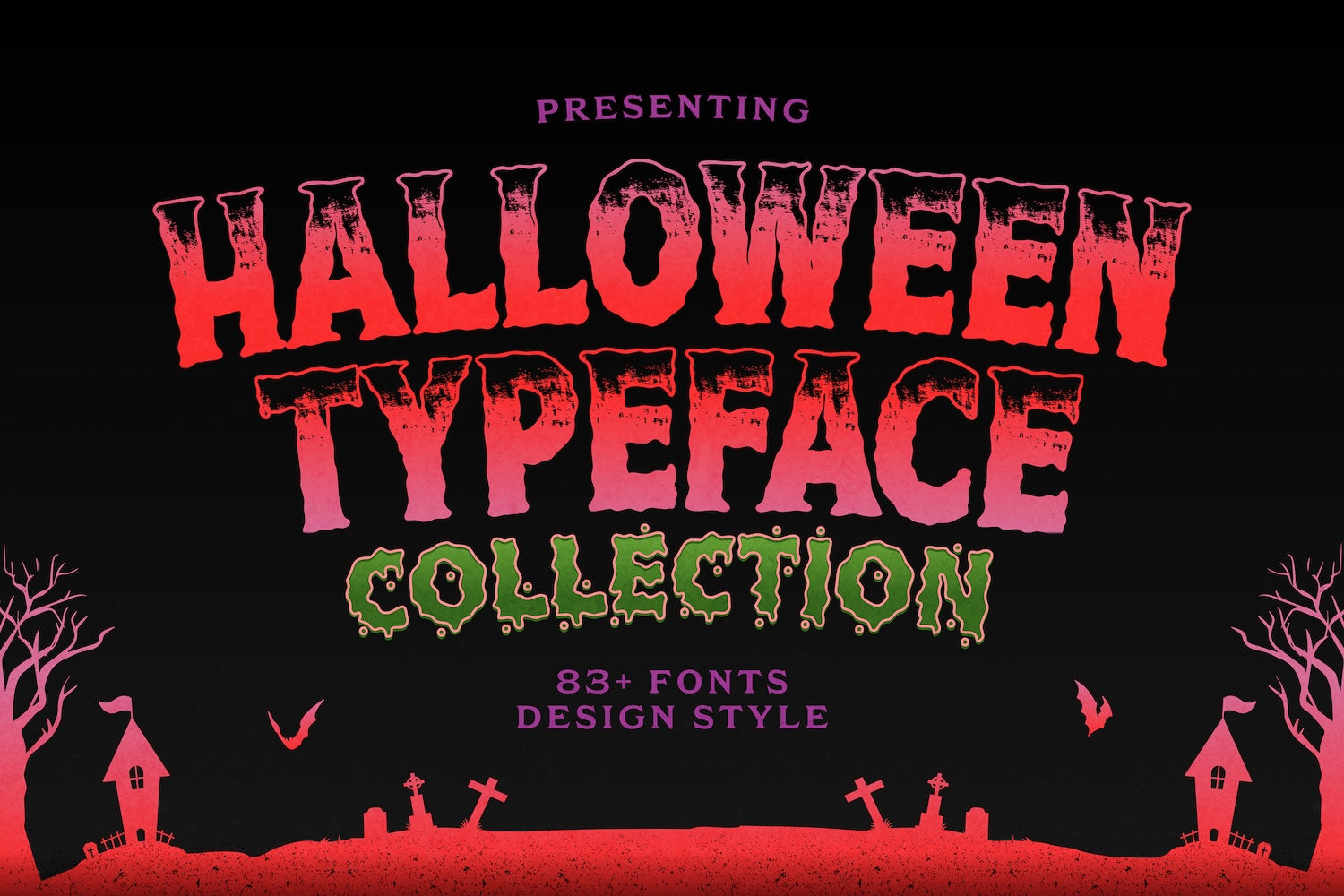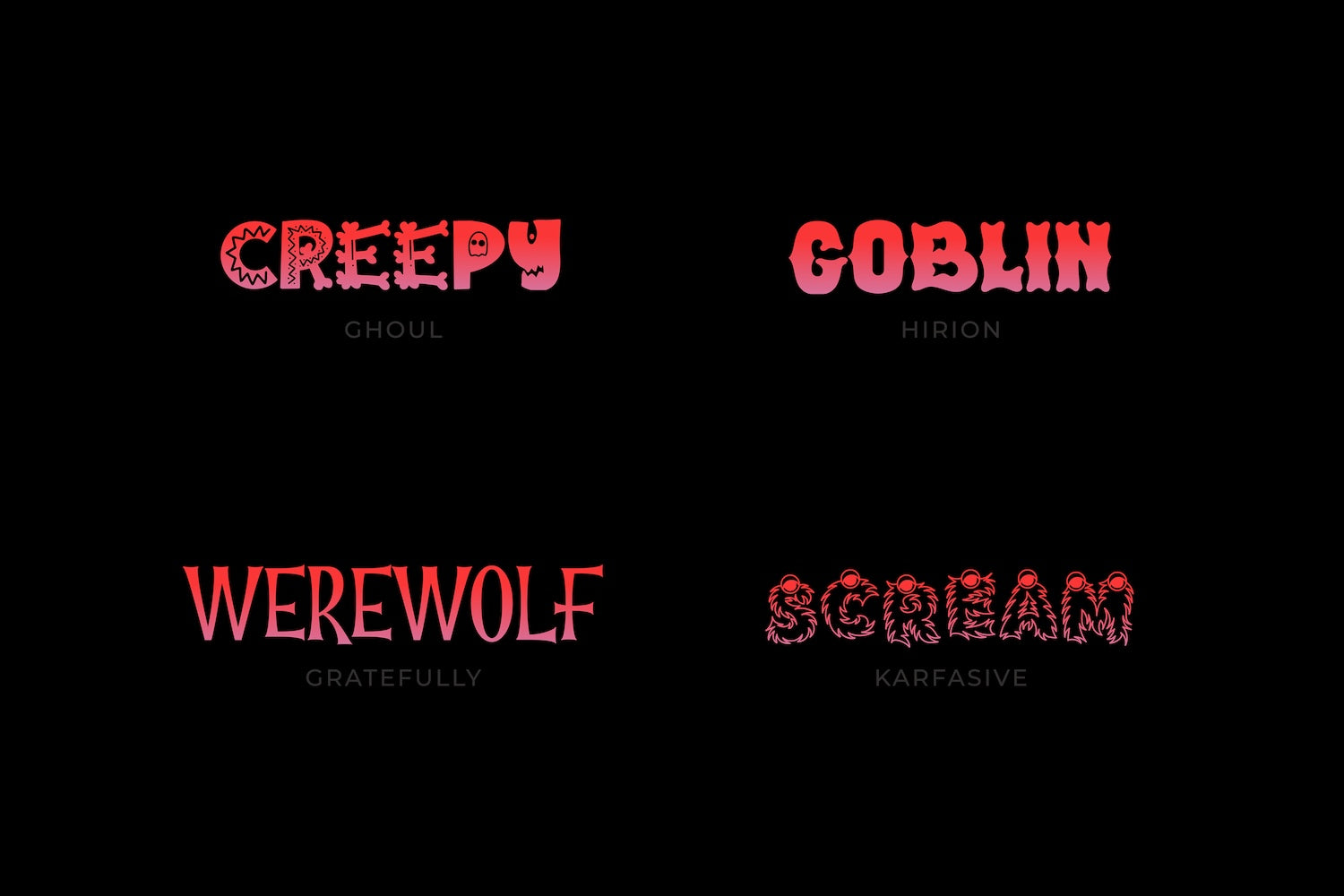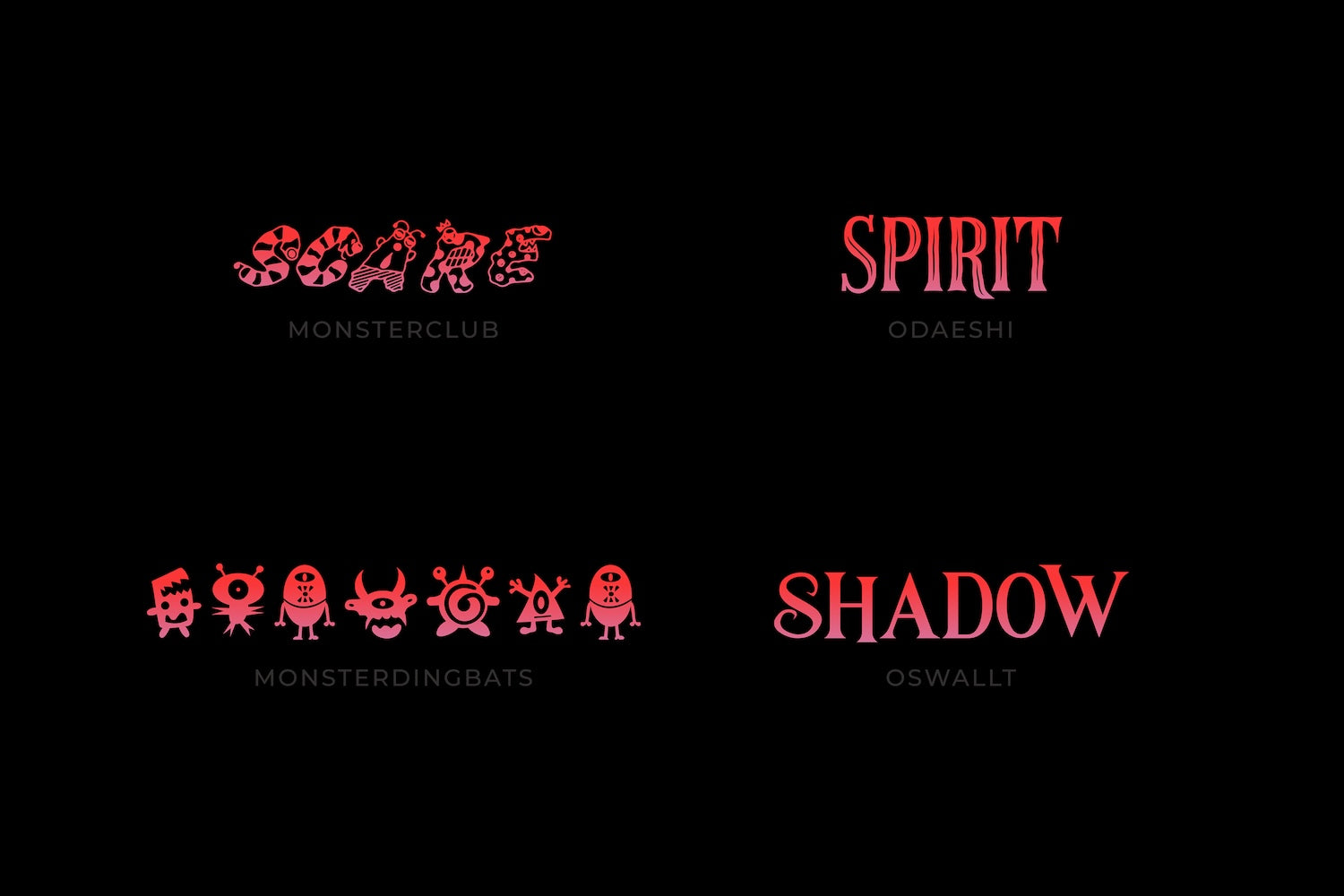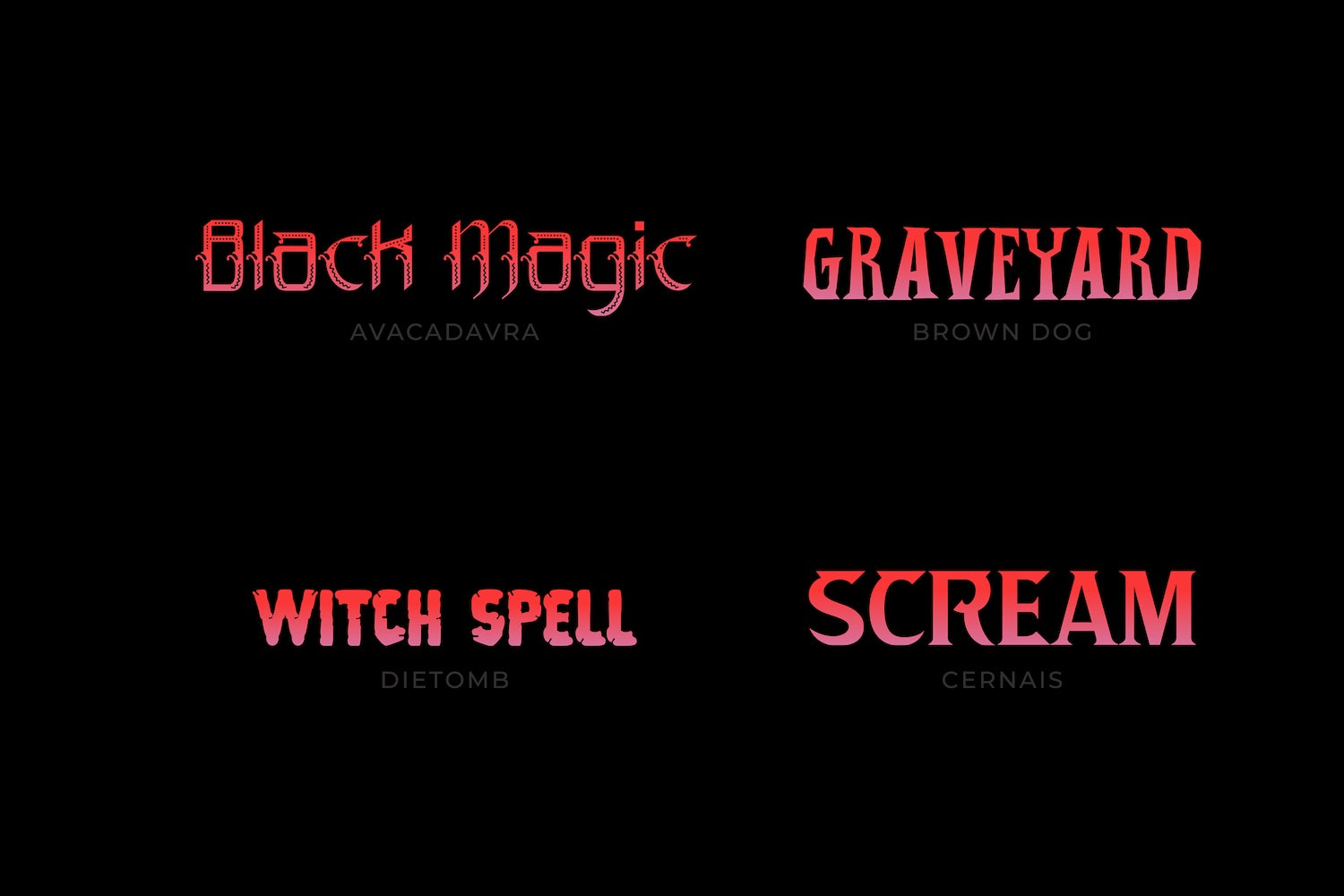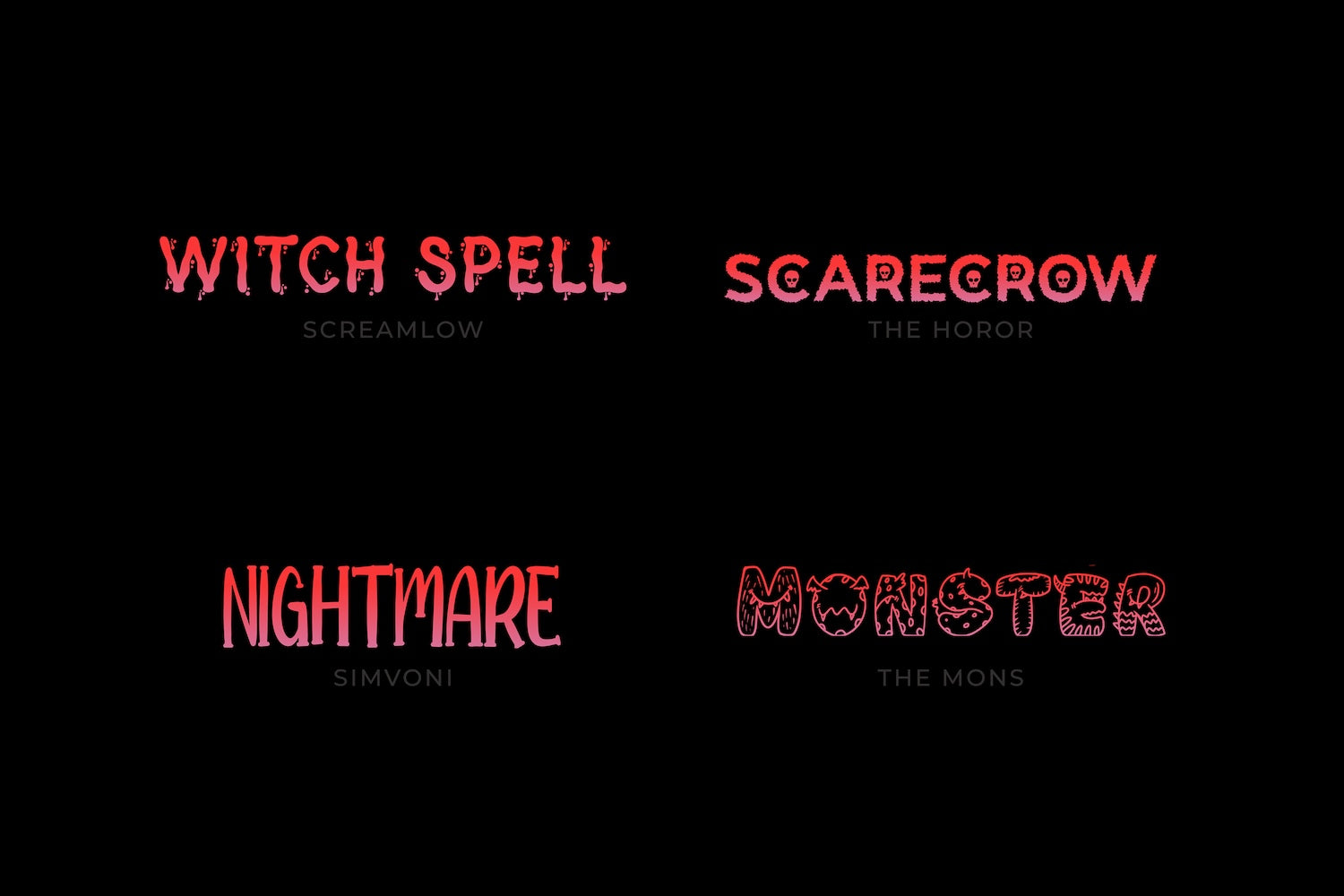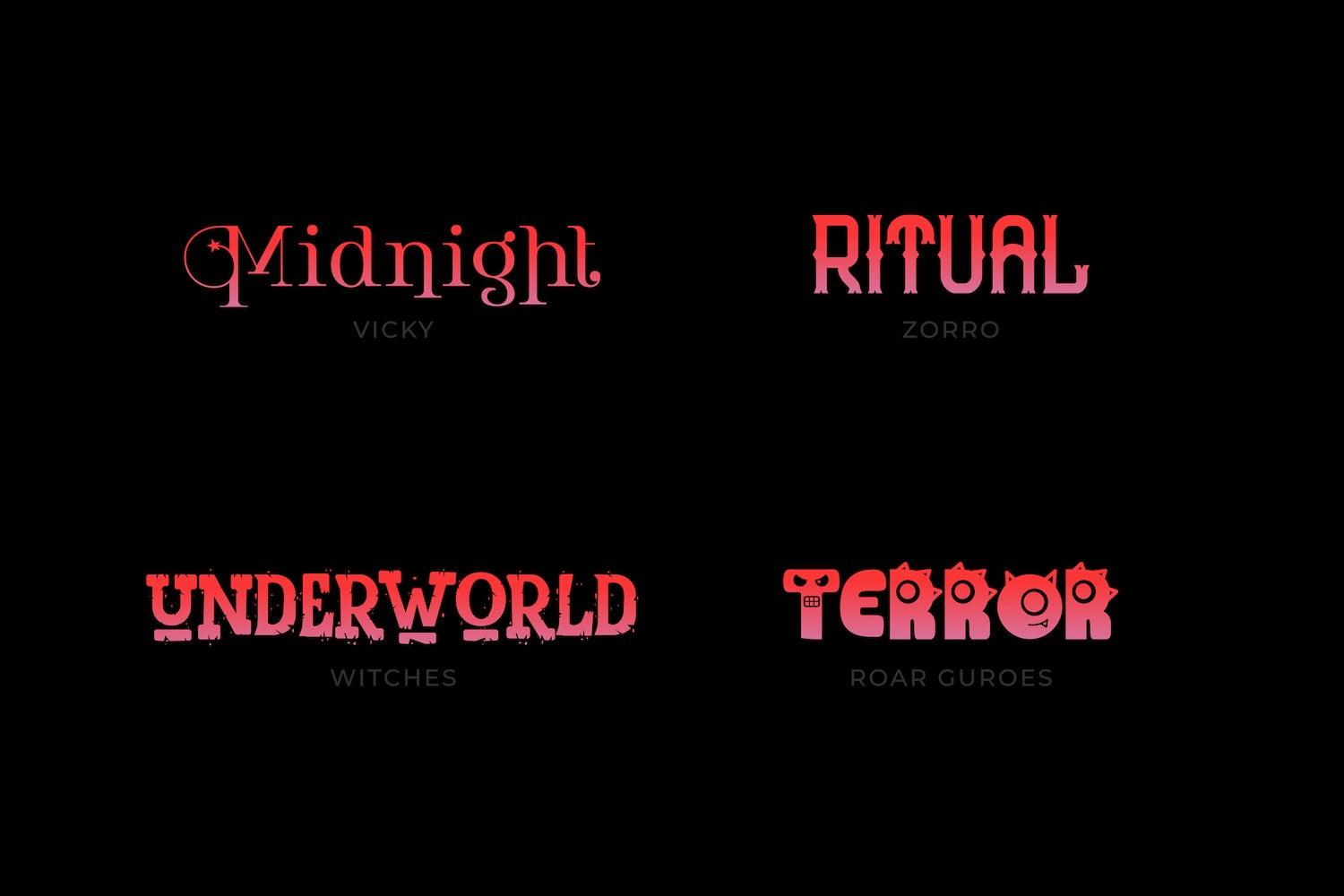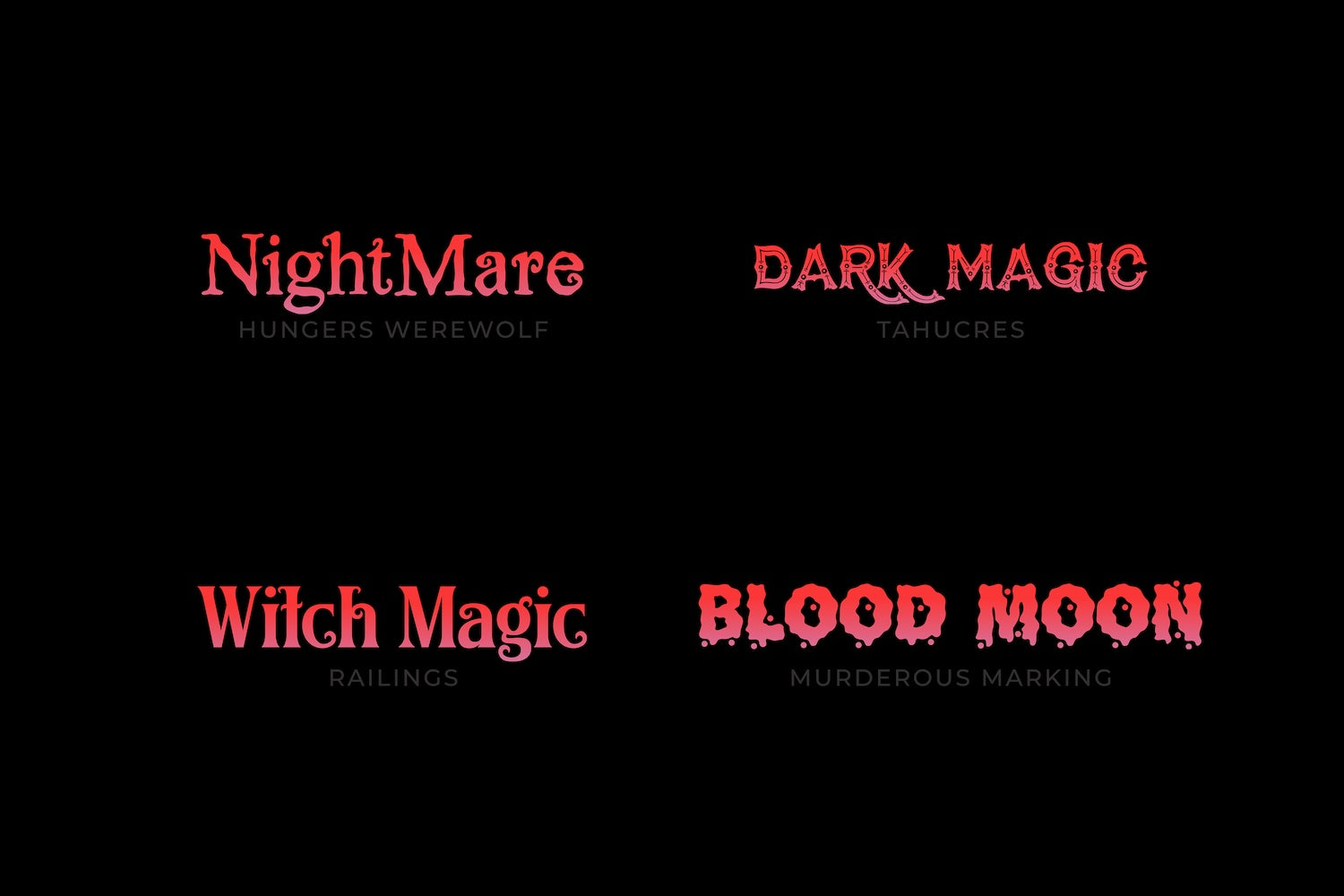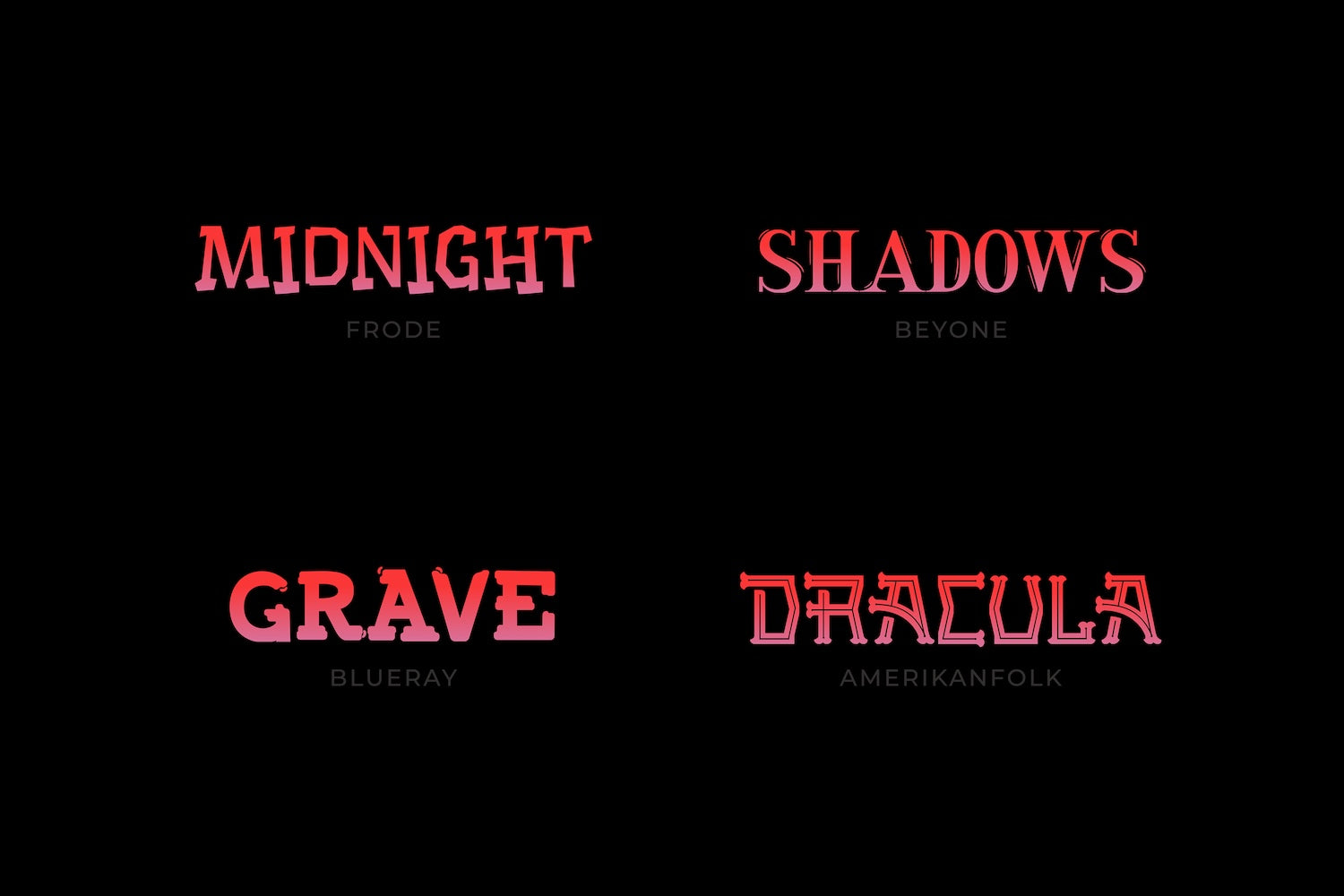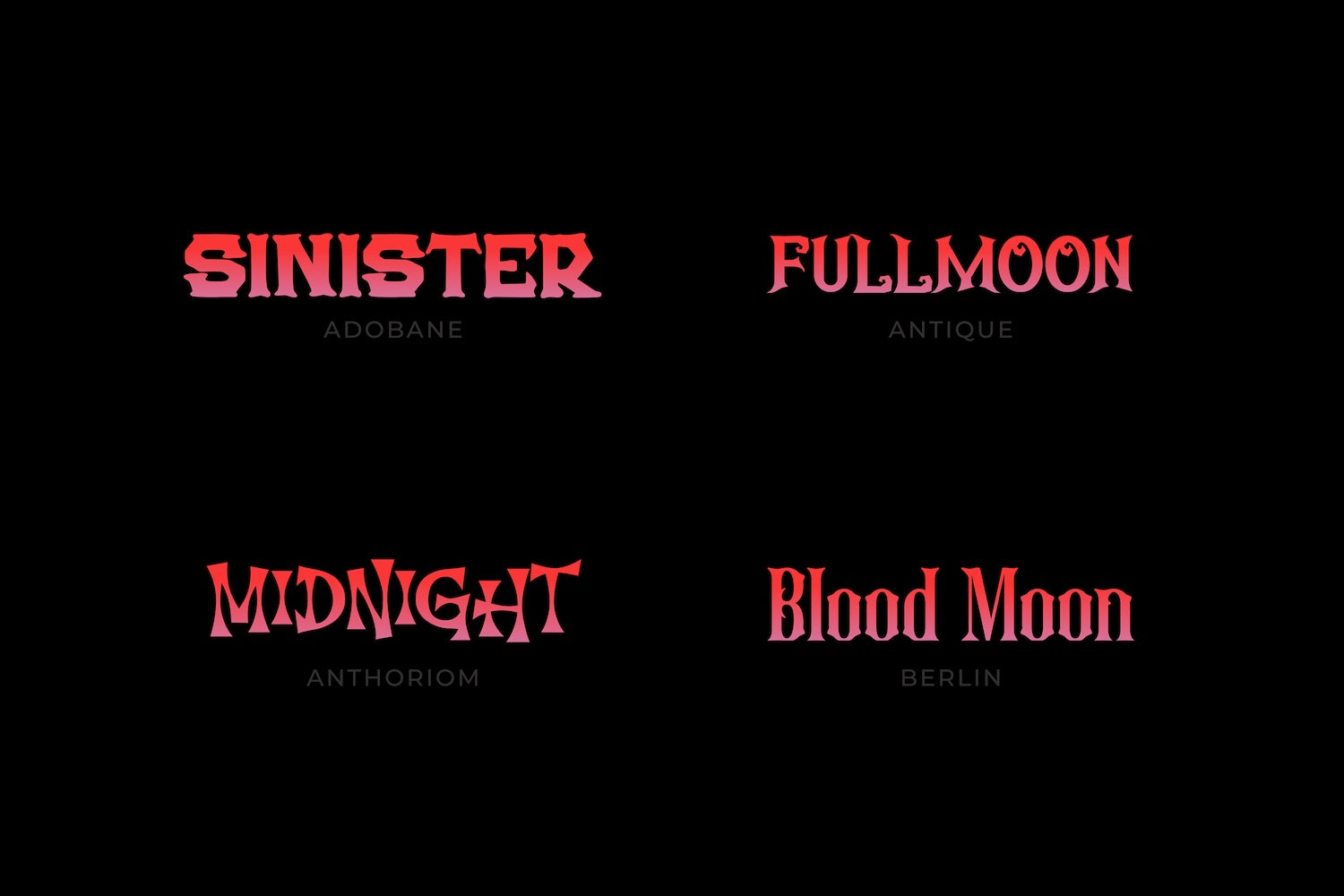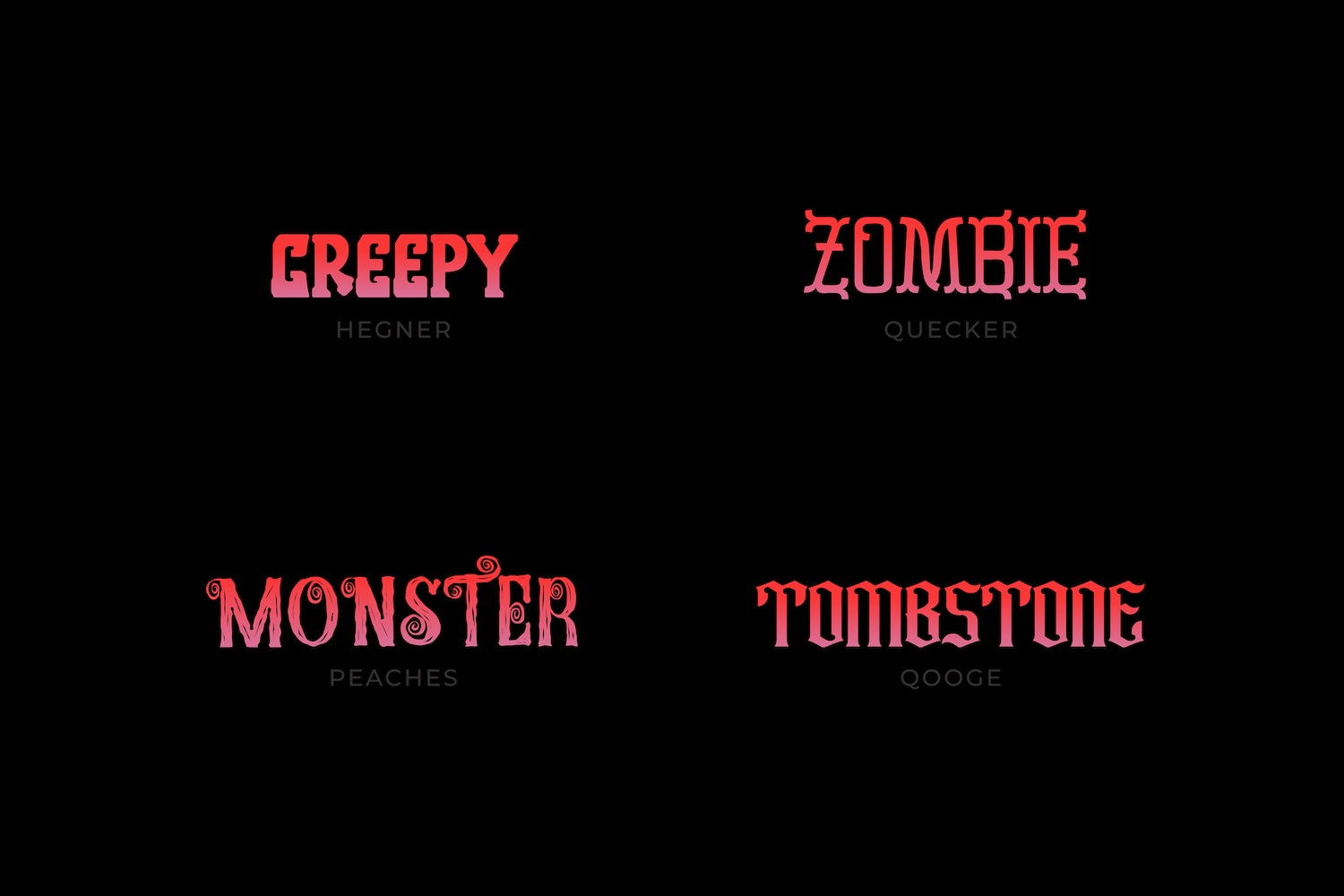
Halloween Typeface Collection
This Halloween font bundle created by Fontder is designed to bring a spooky and playful vibe to your creative projects, making it perfect for titles, headlines, posters, party invitations, social media graphics, and seasonal branding. With a mix of eerie yet fun display styles, each font captures the spirit of Halloween through bold lettering, quirky shapes, and creepy details that instantly grab attention. Whether you’re crafting a haunted house flyer, a trick-or-treat event banner, or festive merchandise, this bundle ensures your designs stand out with a unique seasonal flair that blends both scary and whimsical moods.